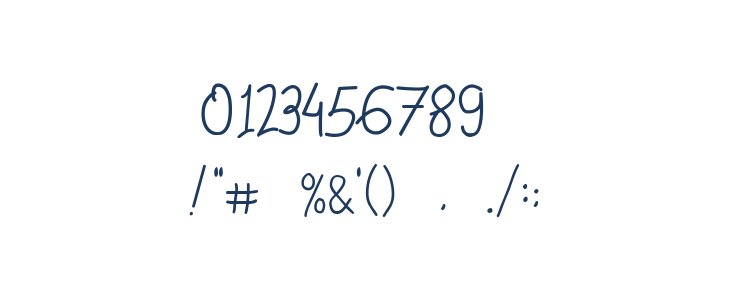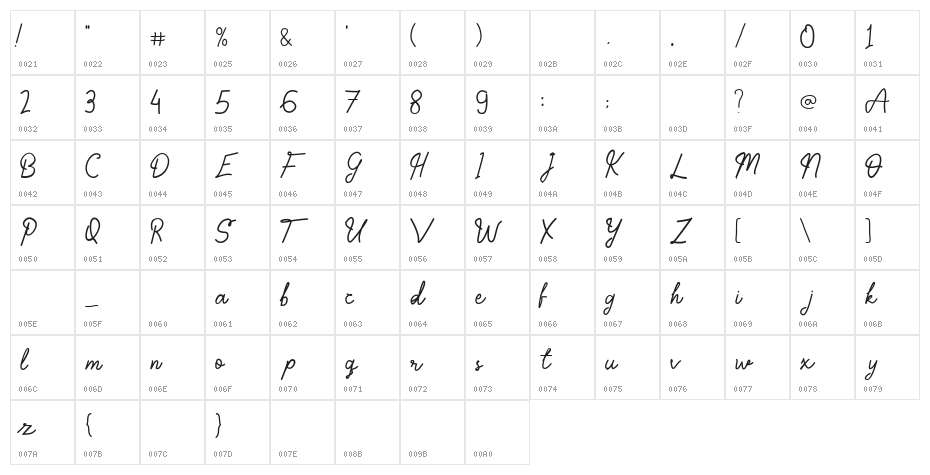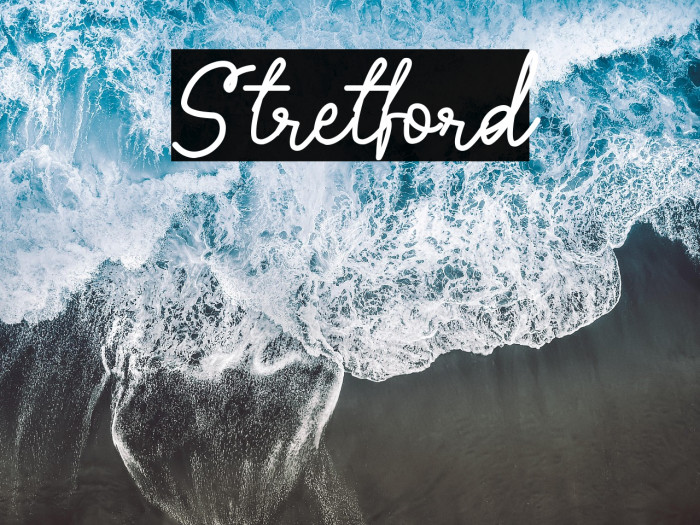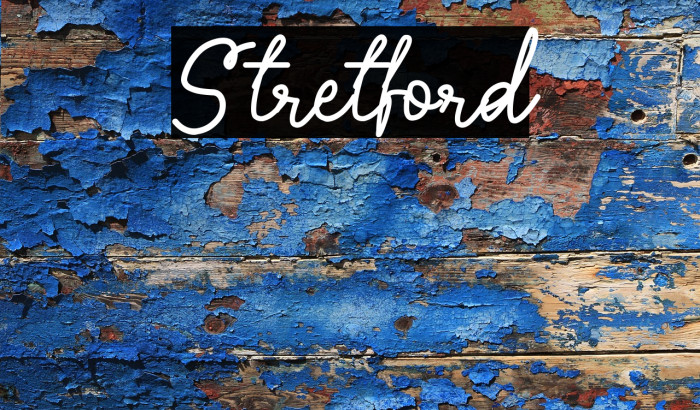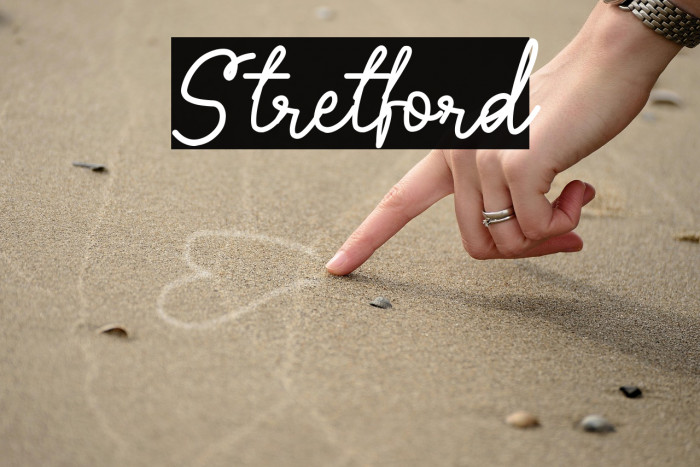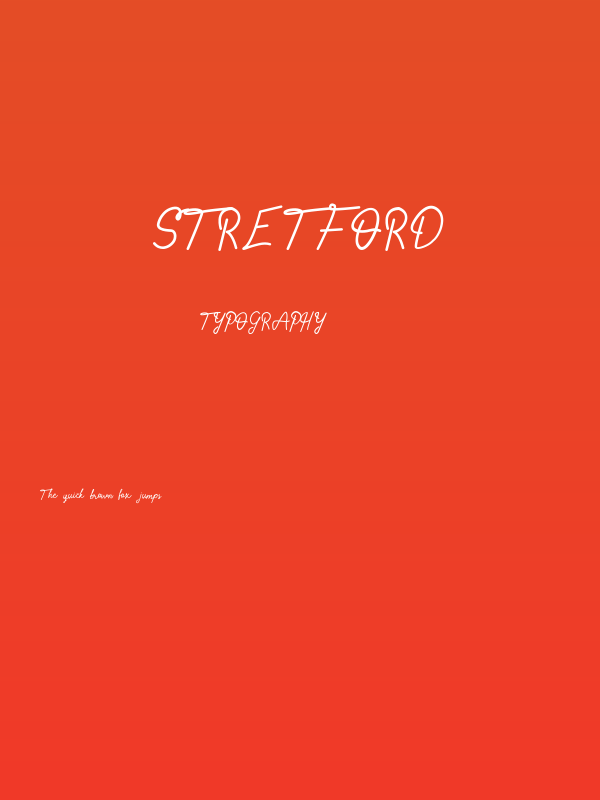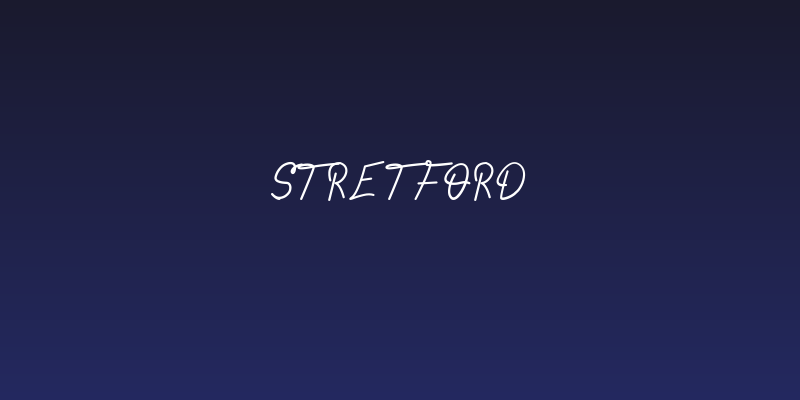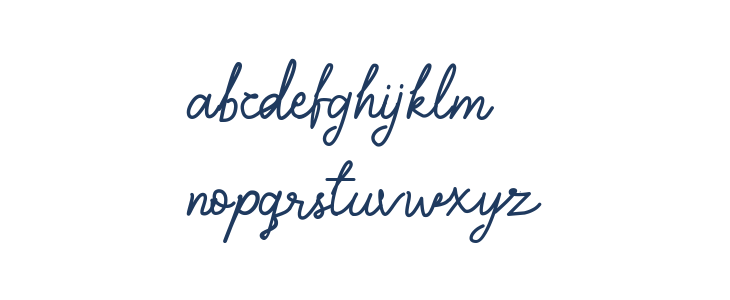
Stretford Font
Stretford Description
This font exhibits a charming handwritten style, characterized by its fluid and connected letterforms. The uppercase letters maintain a consistent height, while the lowercase letters feature elegant loops and curves, adding a touch of sophistication. The numerals are clear and legible, complementing the overall aesthetic. Special characters are seamlessly integrated, maintaining the font's cohesive appearance. The strokes are moderately thick, providing a balanced contrast that enhances readability without sacrificing style. This font's organic flow and casual elegance make it suitable for a variety of creative applications.
Overall StyleCasual, Elegant
Use CaseLogos, Invitations, Greeting Cards
Proposed ProjectsIdeal for wedding invitations, greeting cards, personal branding, and creative projects that require a personal touch.